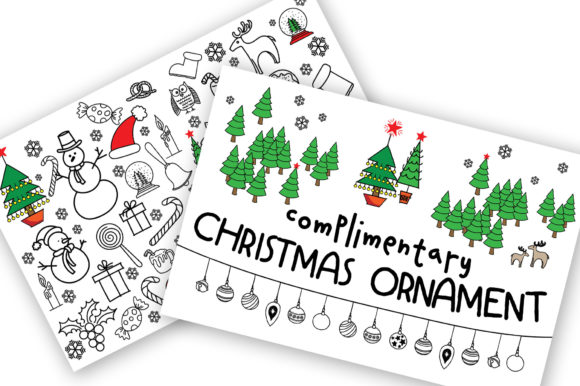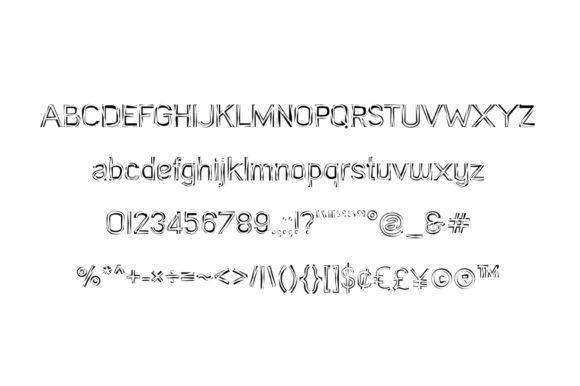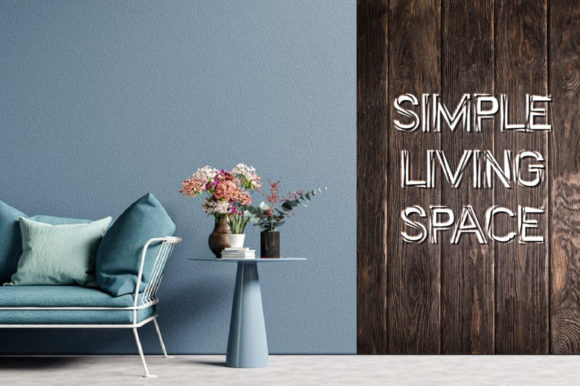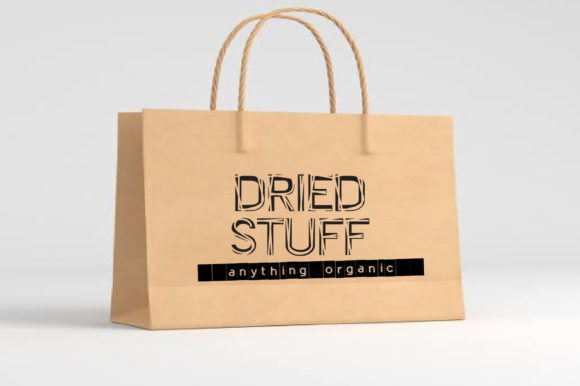
Introduction to SketchyCut Font
The SketchyCut font is a casual and fun display font.
It is the best choice for creating eye-catching logos, branding, and quotes Every letter has a unique and quirky touch, which will make your design come alive.